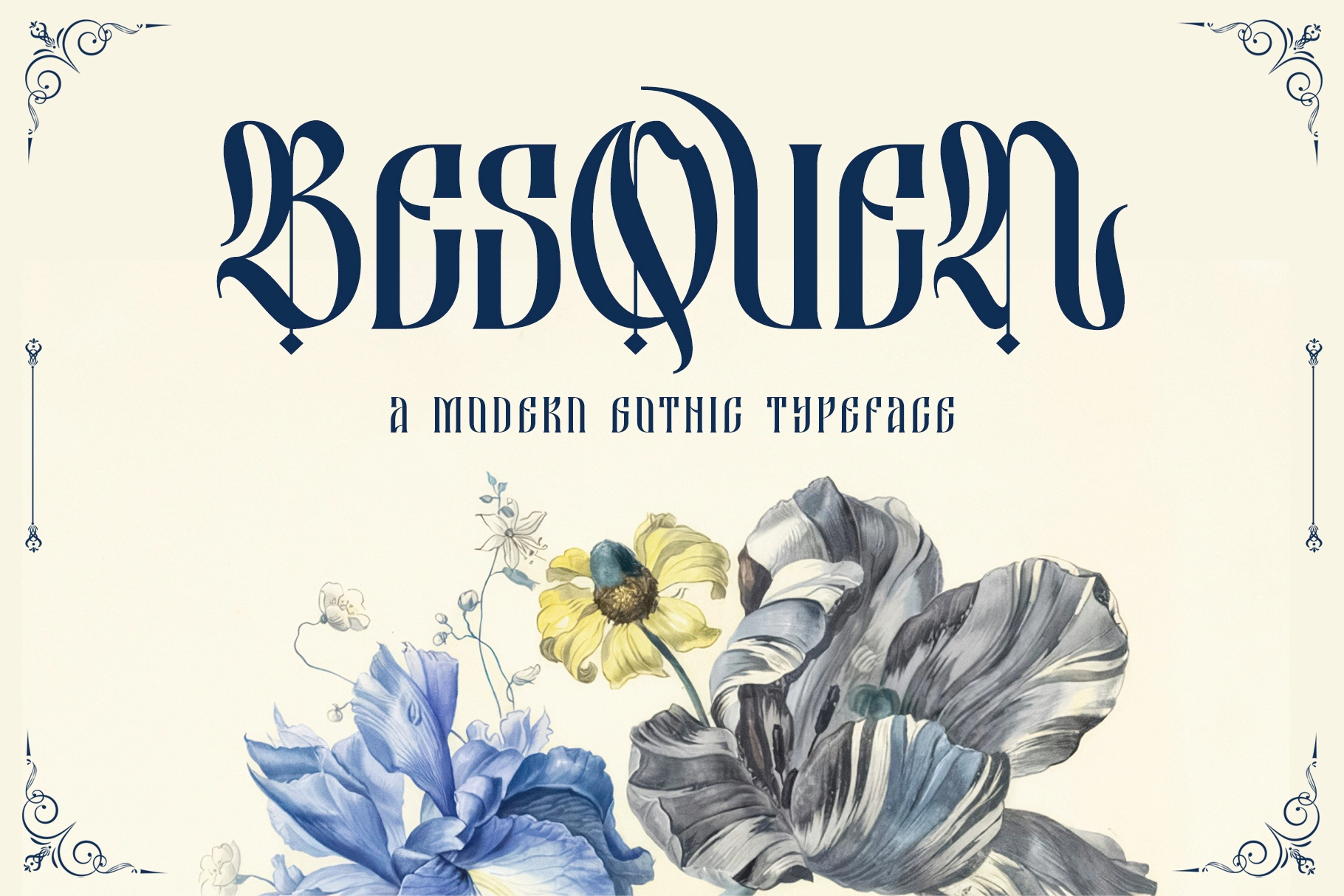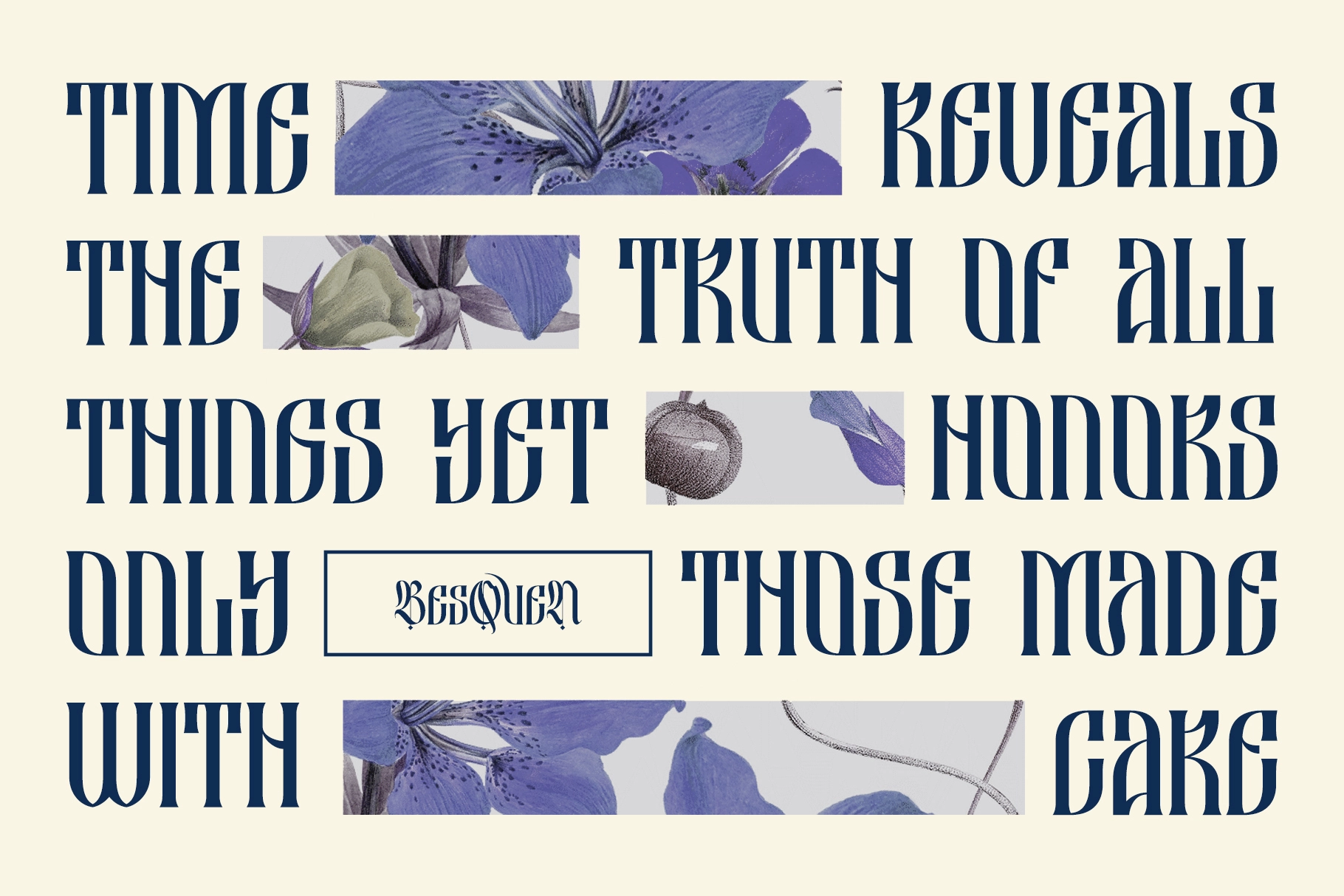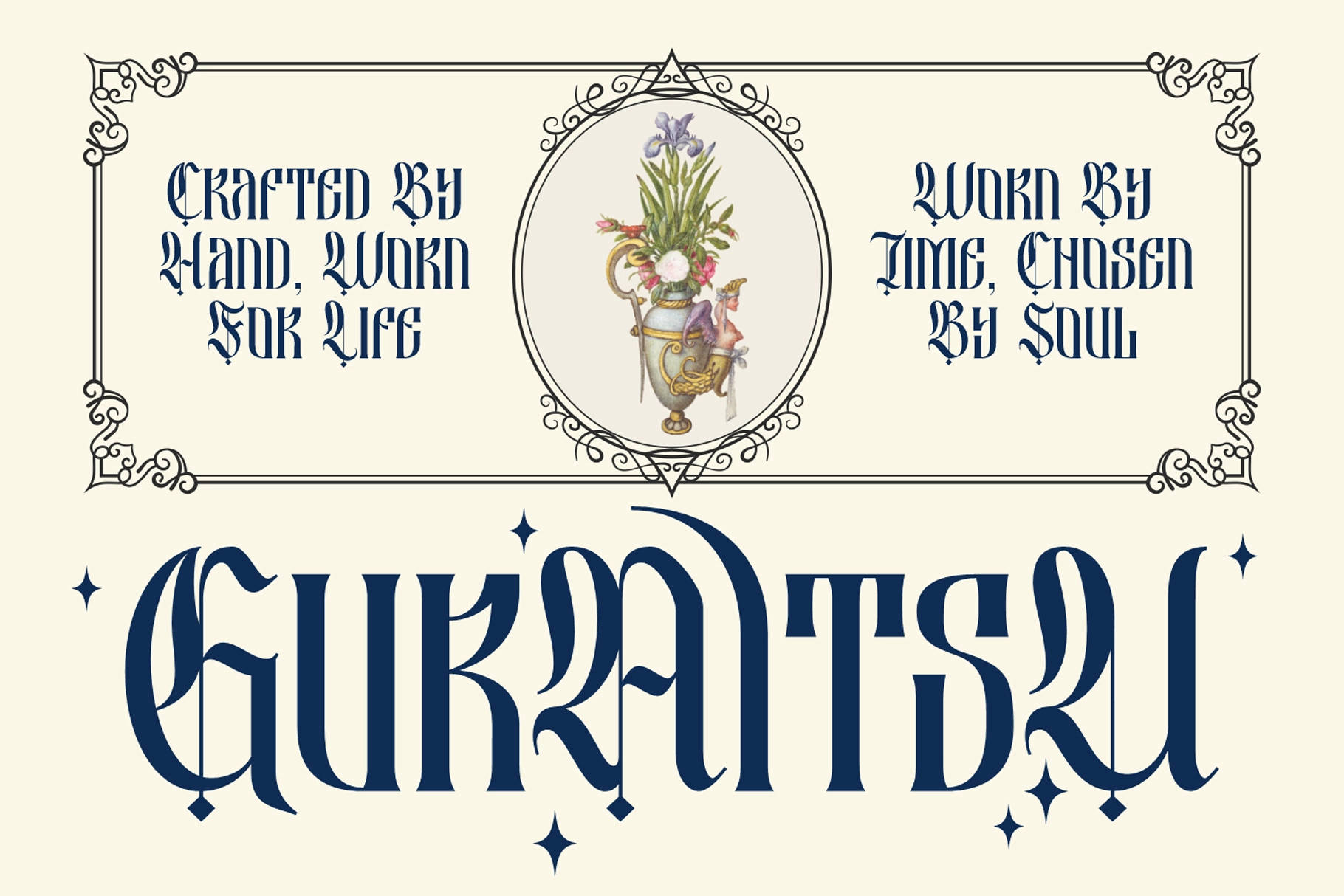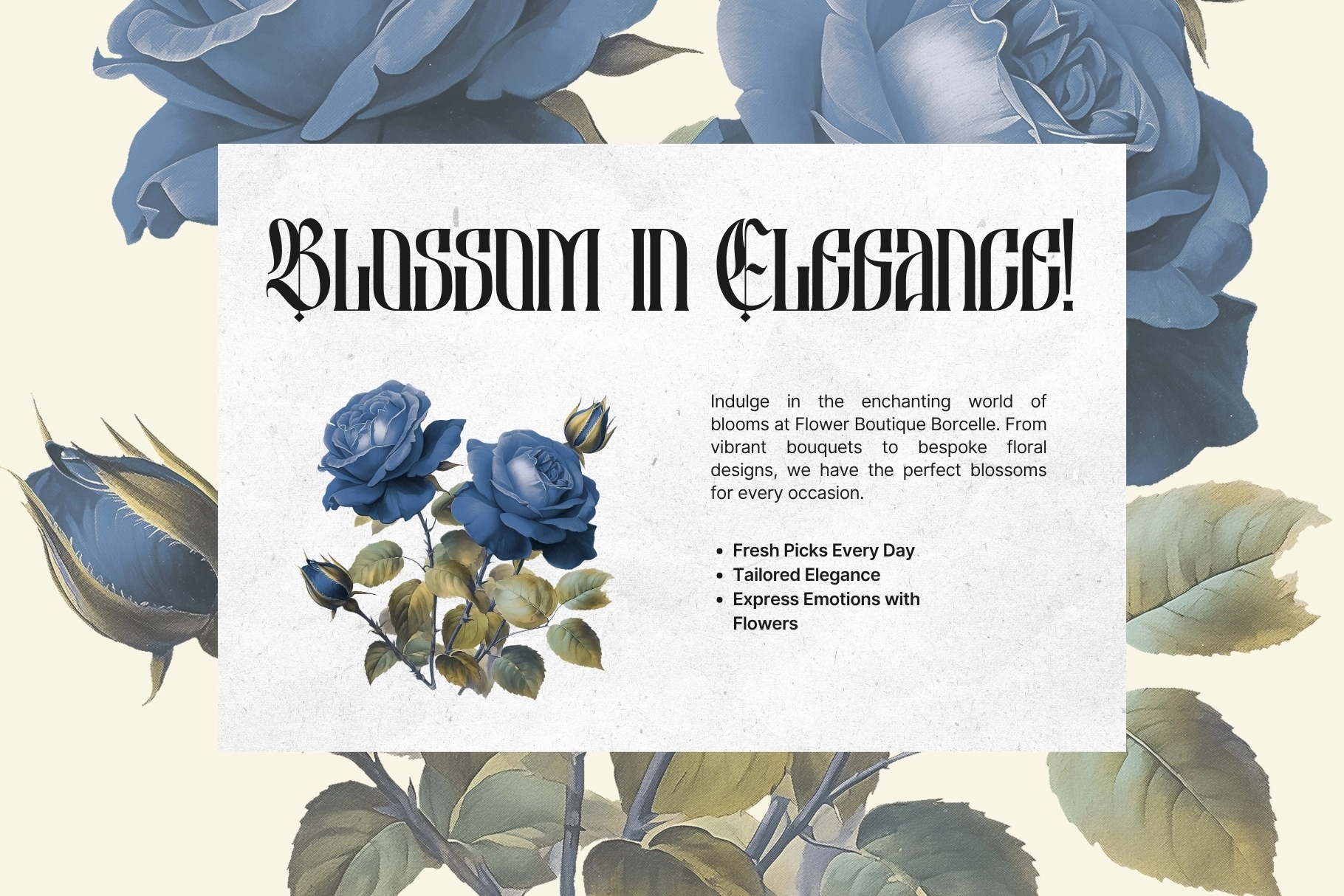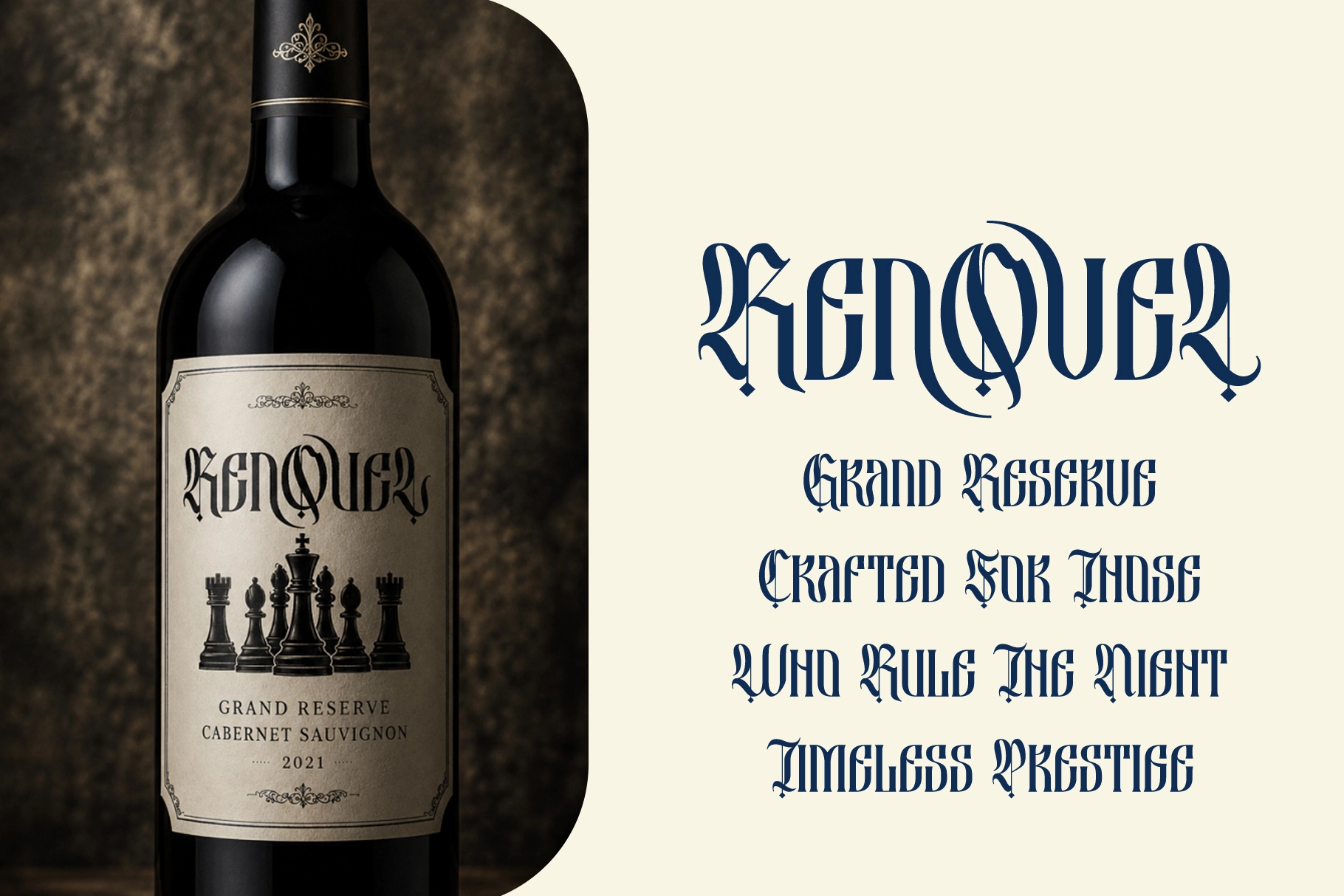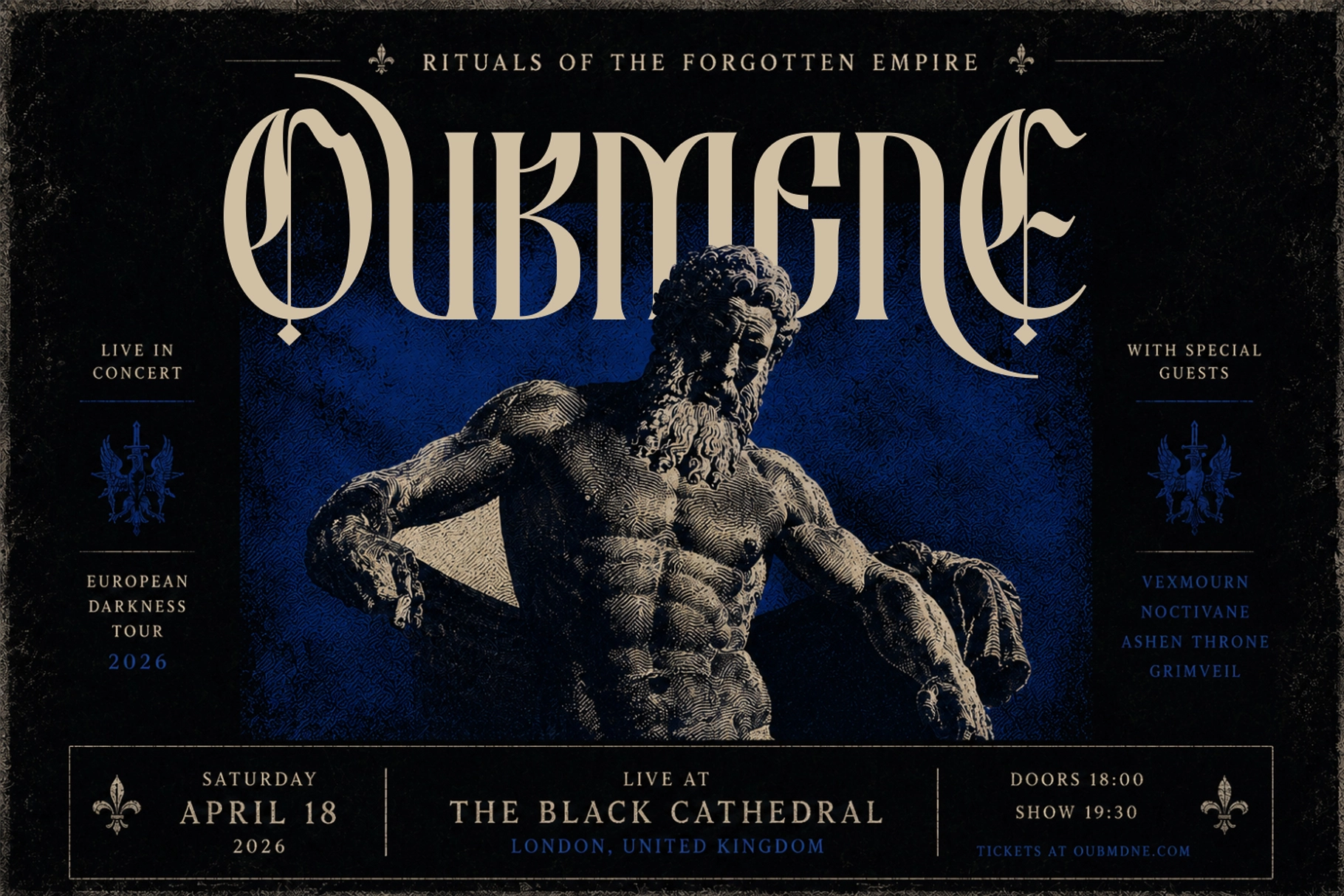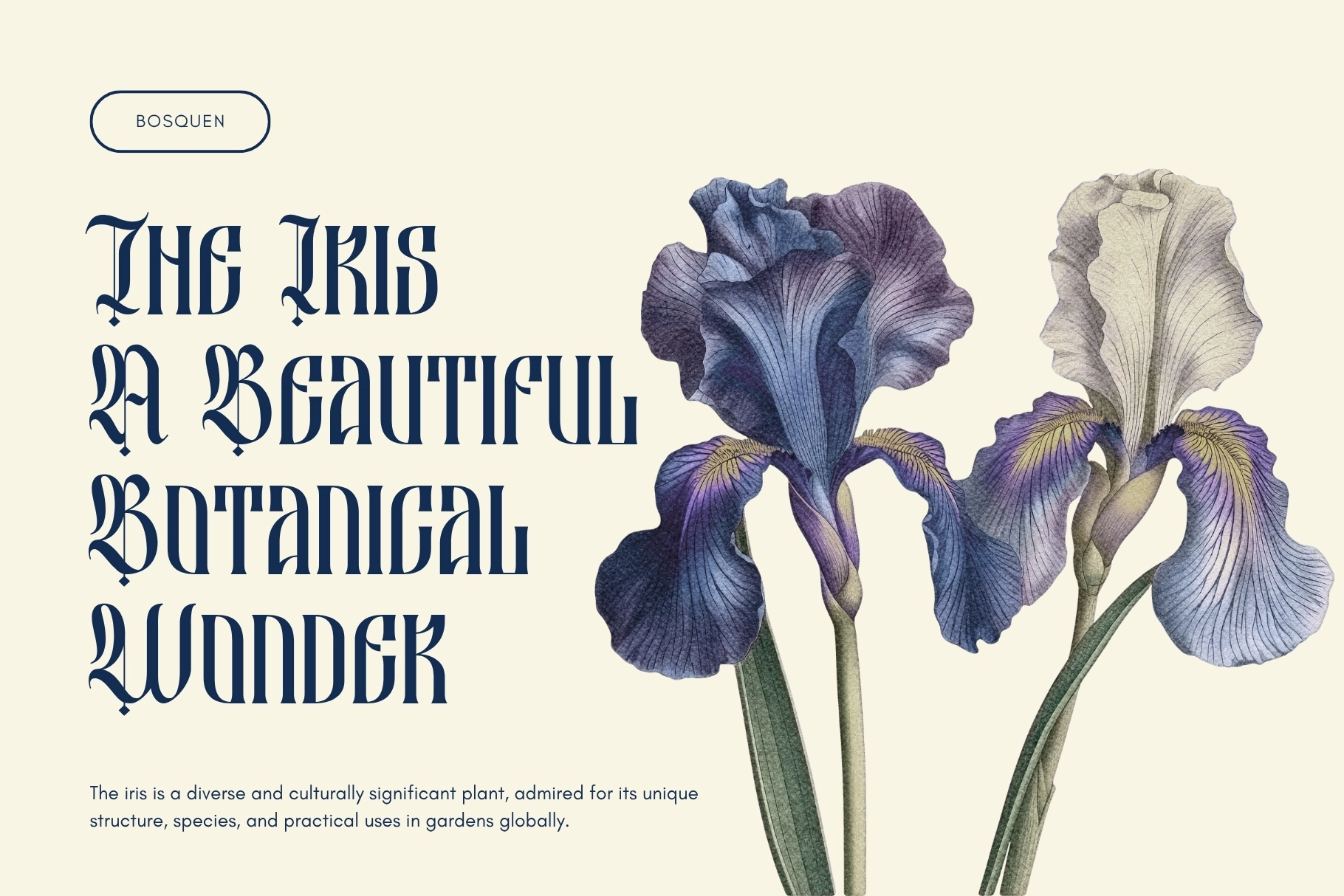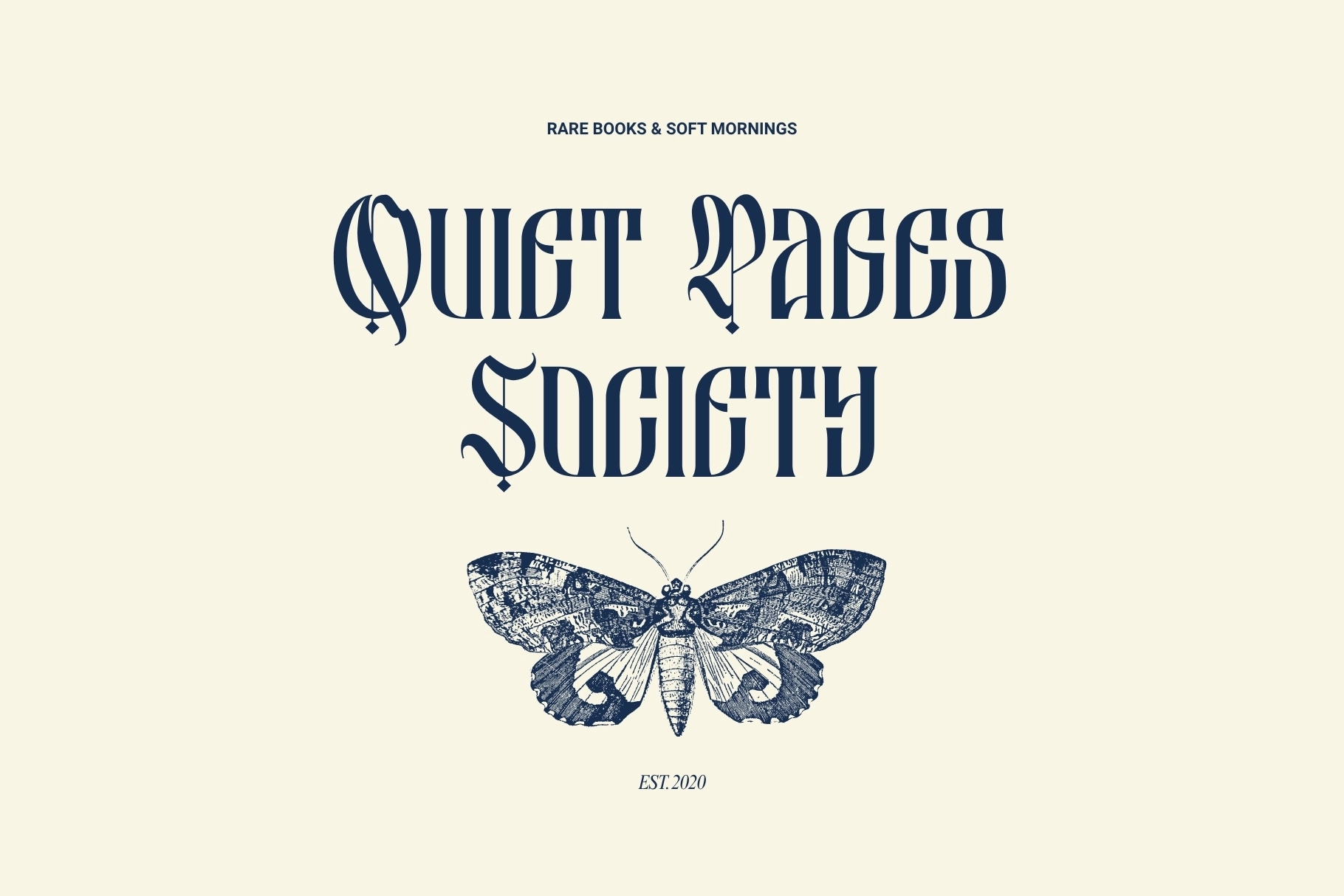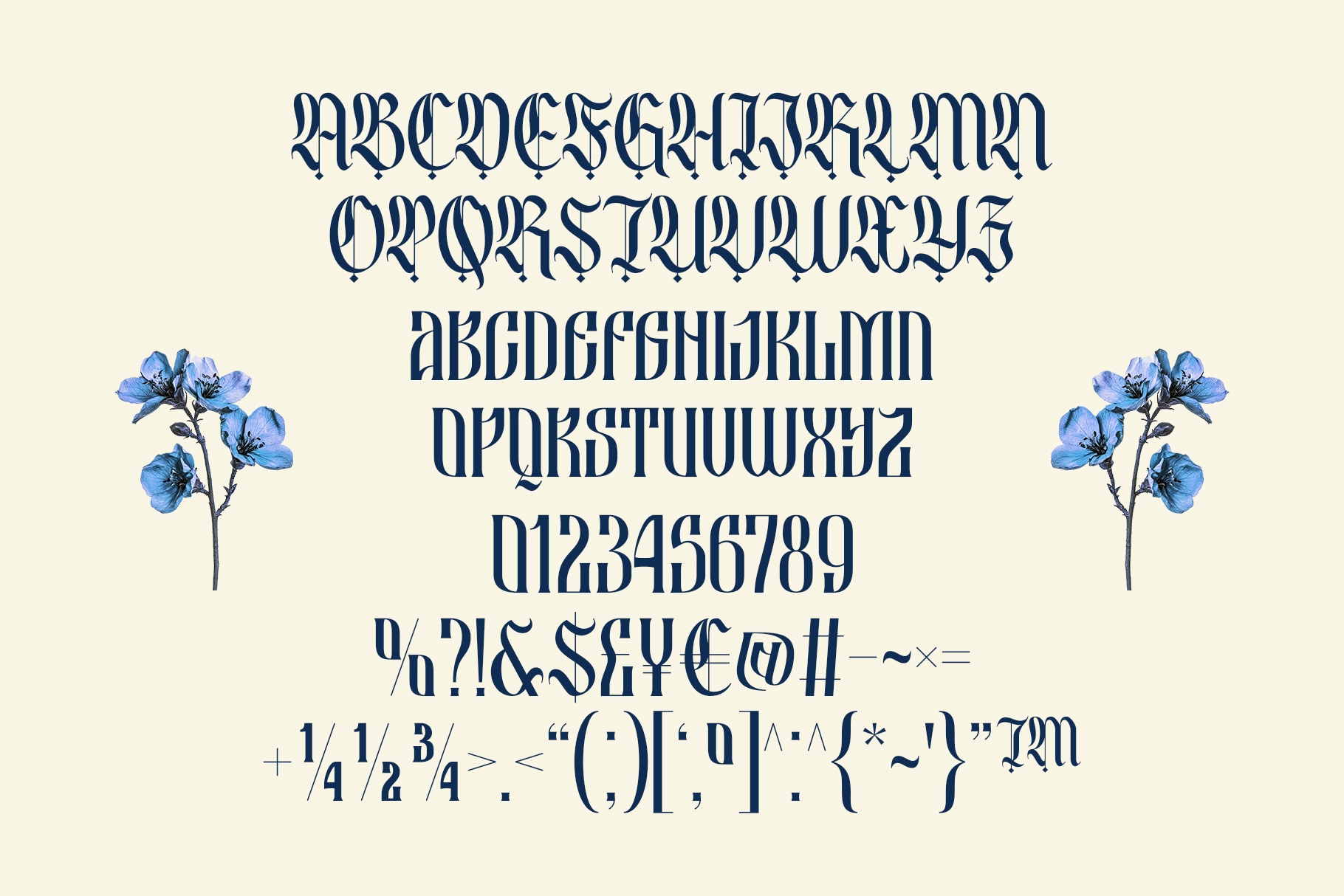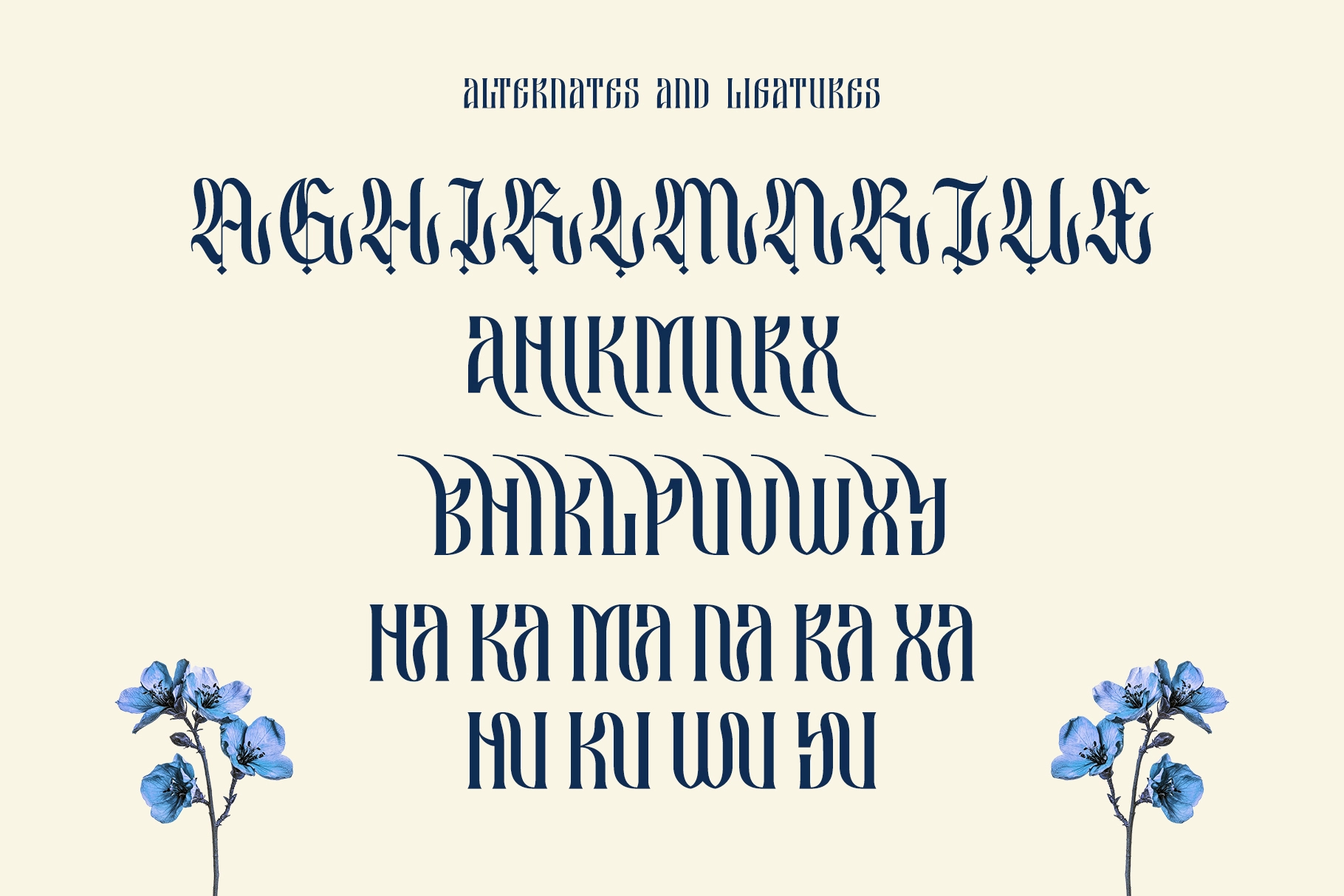
Besquen - Modern Blackletter Font
Besquen keeps the vertical pull and diamond finials of a blackletter font but trades the jagged spurs for smooth, curved strokes, so the gothic weight reads clean instead of cramped. High contrast between thick stems and hairline curves gives the caps a formal, almost engraved presence, closer to a cathedral inscription than a metal-band logo.
The uppercase carries most of the drama, while the lowercase settles into a steadier rhythm for longer set lines, so headline and supporting text stay in the same voice. Use it for wine and spirits labels, luxury branding, book covers, tattoo studio signage, and editorial mastheads.
- uppercase & lowercase;
- numerals, punctuation & symbols;
- ligatures and 2 stylistic alternate sets;
- 266 glyphs total